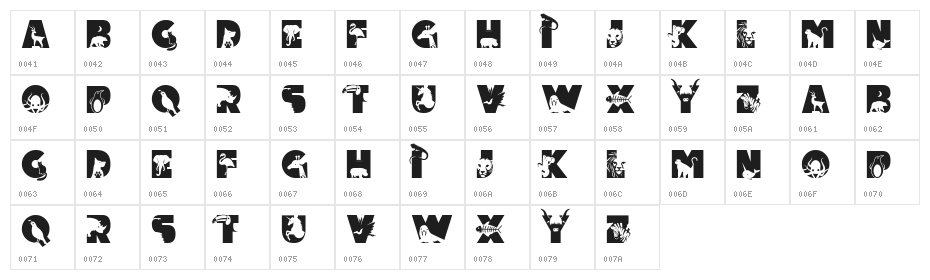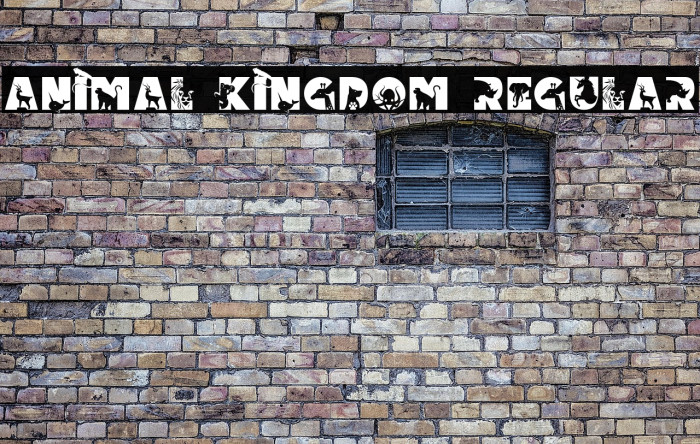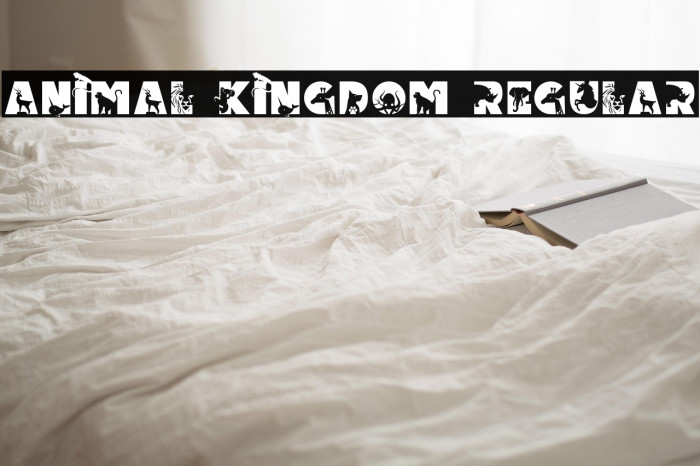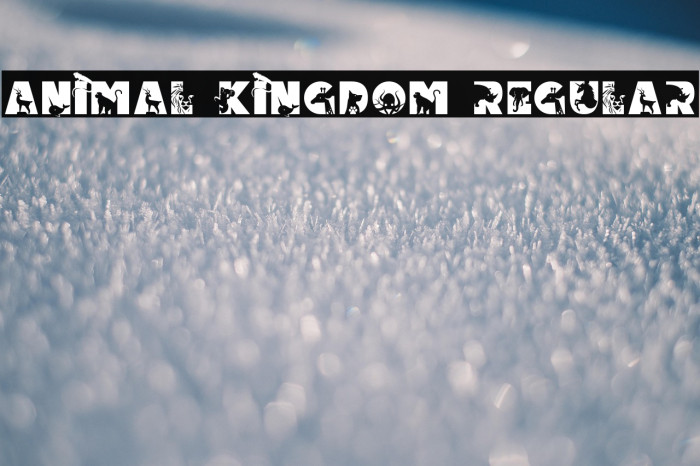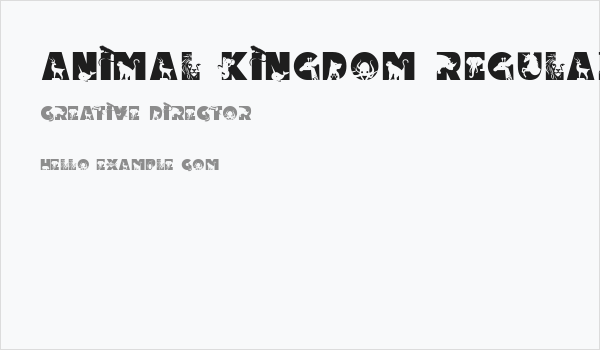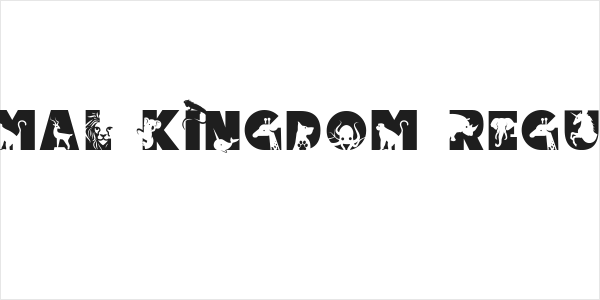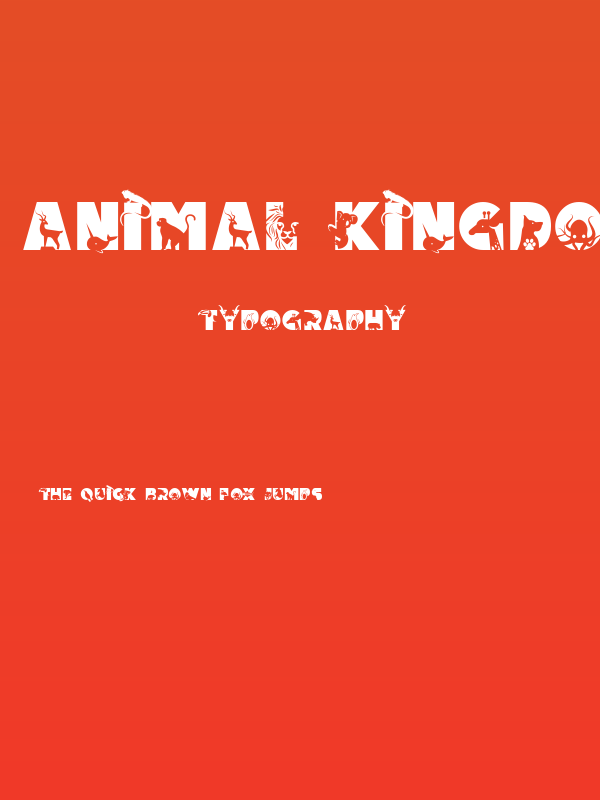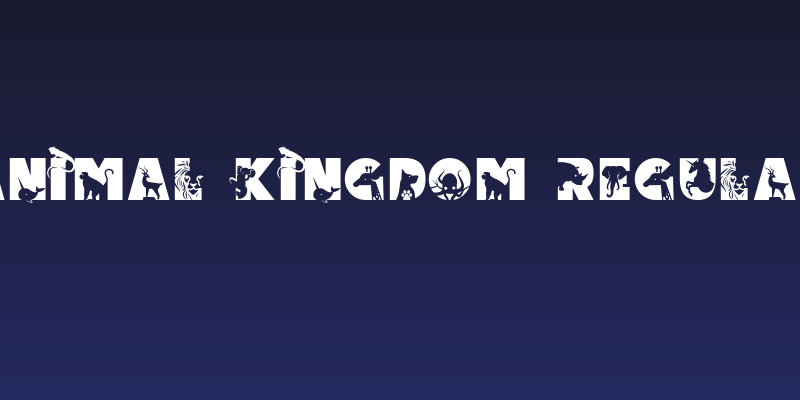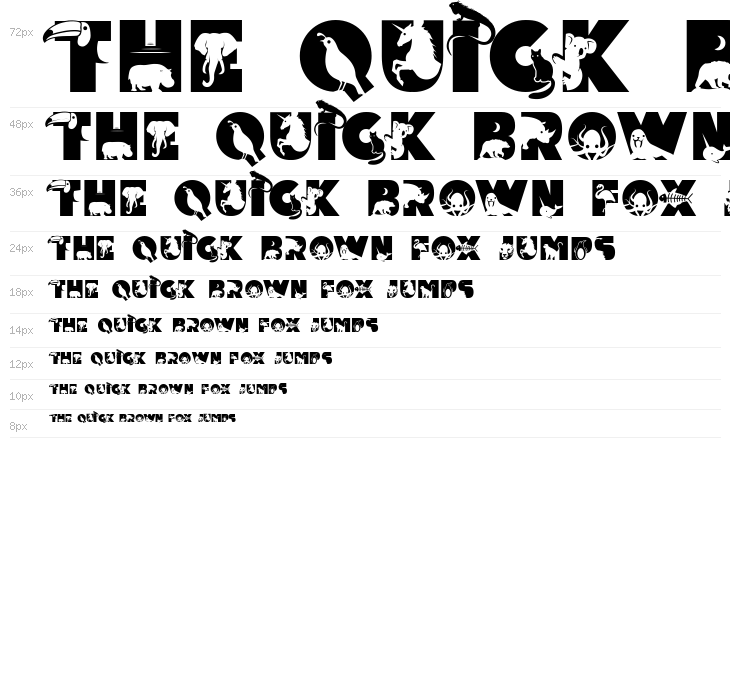
Animal Kingdom Regular Font
Animal Kingdom Regular Description
This font is a unique and playful decorative typeface that incorporates animal silhouettes within each letter. The uppercase letters are filled with various animal shapes, creating a whimsical and engaging visual effect. Each character is distinct, with animals like elephants, flamingos, and cats cleverly integrated into the letterforms. The design is bold and eye-catching, making it suitable for projects that require a fun and creative touch. The font's intricate details and imaginative style make it a standout choice for themed designs.
| Proposed Projects | Ideal for children's books, educational materials, zoo or wildlife-themed posters, and playful branding. |